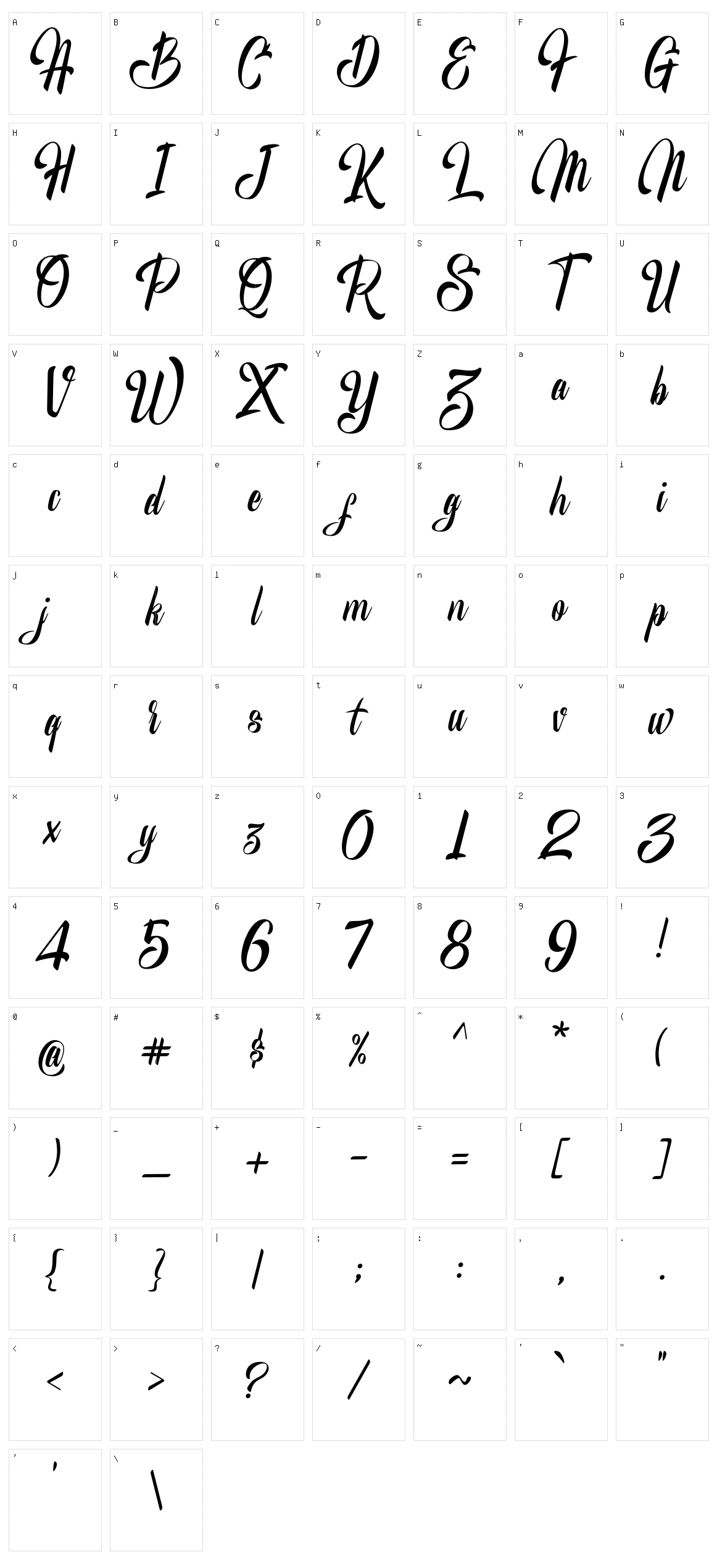
The free font Mr Scripton is carefully designed by Unflea Studio, showcasing a thoughtful balance of creativity and usability and falls under the Script font style. When you download the ZIP file, it contains only 32.5 KB of font files, making it lightweight and quick to download. Please review the license details below to understand permitted usage and distribution rights. If license information is not available, we recommend using this font for personal projects only or contacting the author directly for commercial usage permissions.